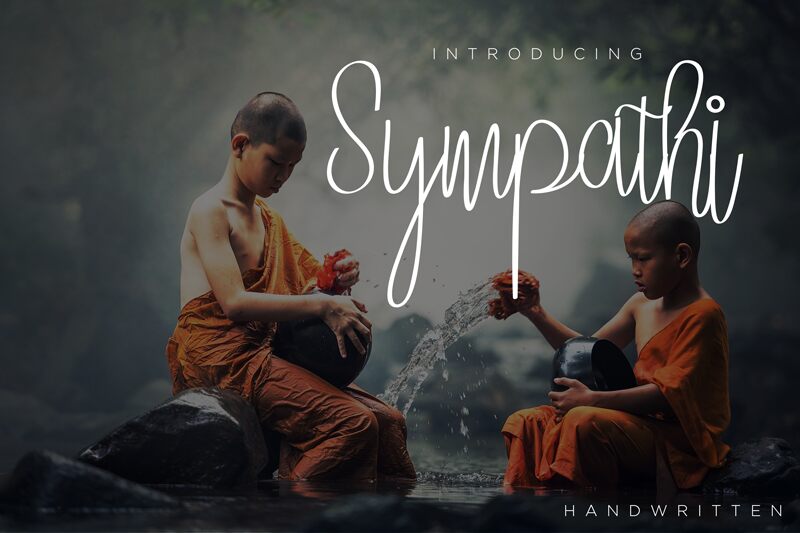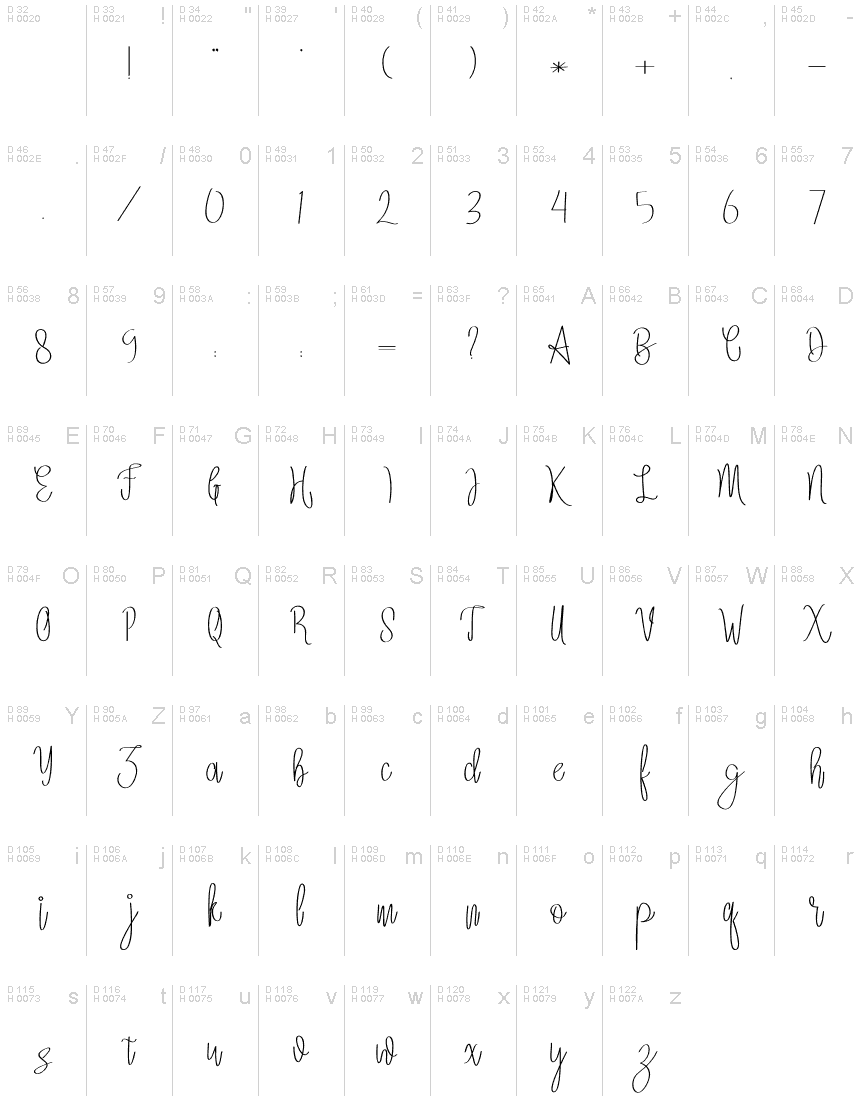
Sympathi
Sympathi, a captivating handwritten font by Fiqiart, exudes elegance with its extra-light weight and condensed width. Its graceful curves and delicate strokes make it perfect for wedding invitations and romantic projects. The unique charm of Sympathi also shines in branding materials, bringing a touch of sophistication to logos, packaging designs, and business cards. With its easy readability and distinctive character, this font adds a personal feel to blog headers and social media graphics. Let Sympathi add a touch of refined artistry to your creative endeavors.